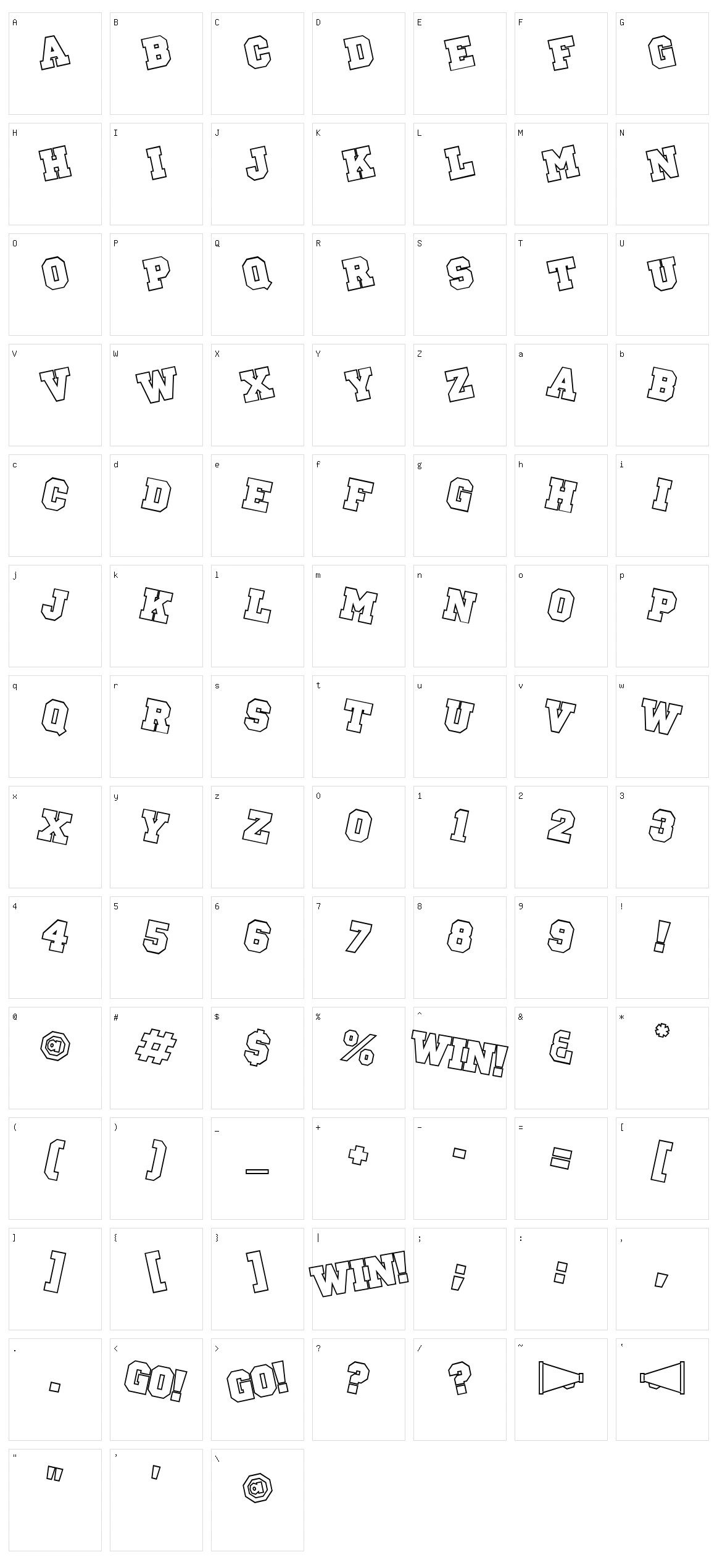
The character set includes:
Lower case letters are tilted right.
Upper case letters are tilted left.
Numbers are tilted right.
ALT0161 thru ALT0170 are the numbers tilted left.
Underline (_) is underline (no tilt).
Keystrokes !@#$%&*()+-=+;:'",.[] are right tilted characters.
` is right facing megaphone
~ is left facing megaphone
{ is left tilting [
} is left tilting ]
\ is left tilting @
< is right tilting GO!
> is left tilting GO!
^ is right tilting WIN!
| is left tilting WIN!
ALT0171 is left tilting !
ALT0172 is left tilting "
ALT0173 is left tilting #
ALT0174 is left tilting $
ALT0175 is left tilting %
ALT0176 is left tilting &
ALT0177 is left tilting '
ALT0178 is left tilting (
ALT0179 is left tilting )
ALT0180 is left tilting *
ALT0181 is left tilting +
ALT0182 is left tilting ,
ALT0183 is left tilting -
ALT0184 is left tilting .
ALT0185 is left tilting :
ALT0186 is left tilting ;
ALT0187 is left tilting =
ALT0215 is right tilting ×
ALT0216 is left tilting ×
The name "Pep Rally" should be self explanatory. This font might be
fun for use making signs for pep rallies...DUH!